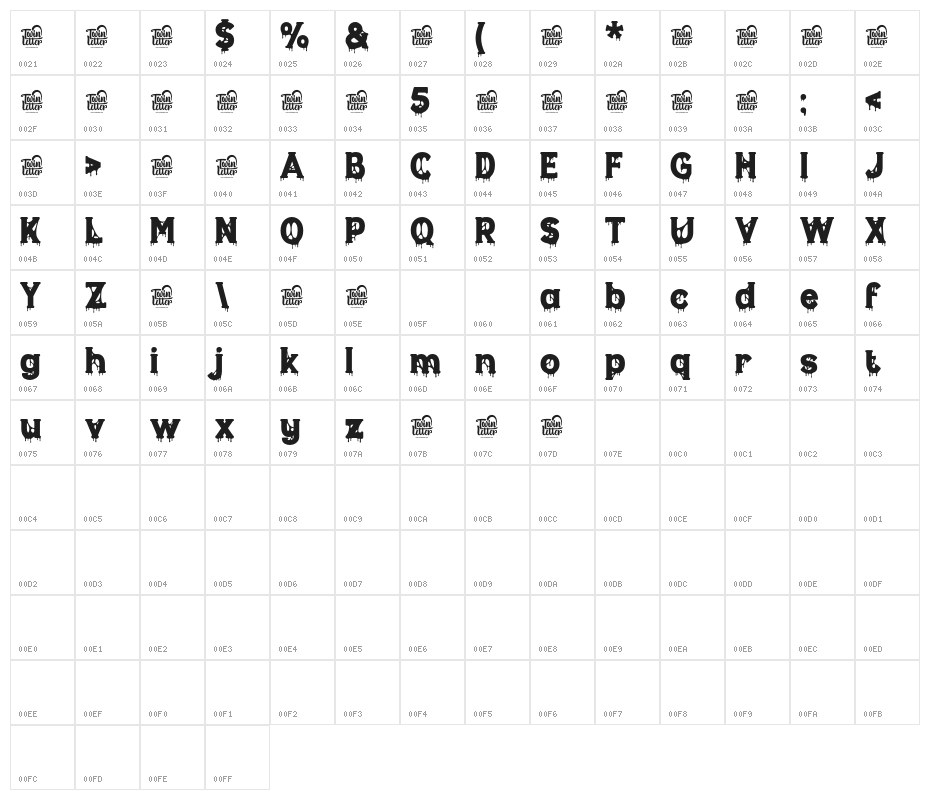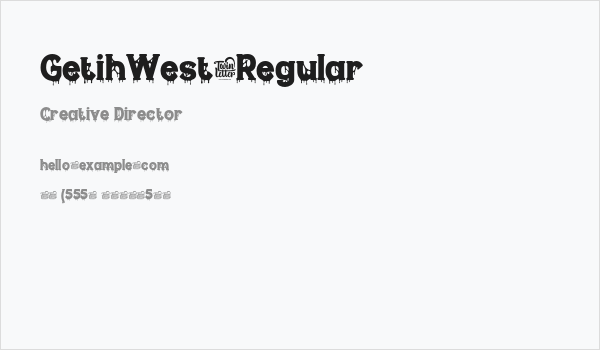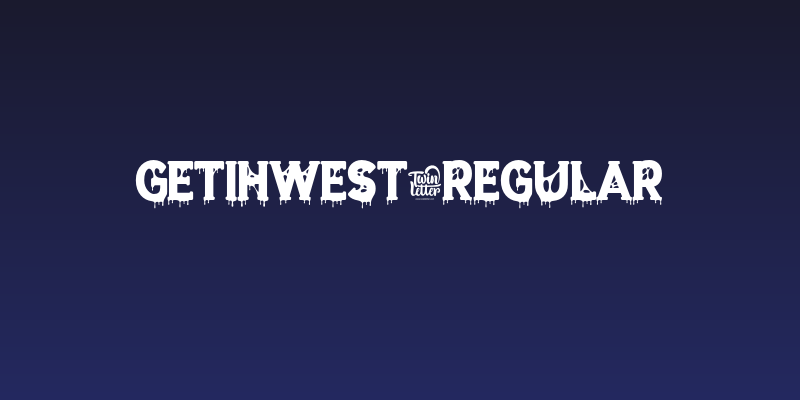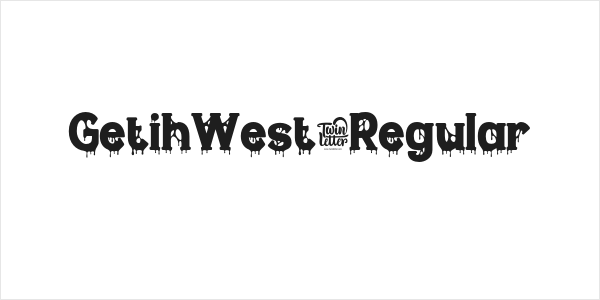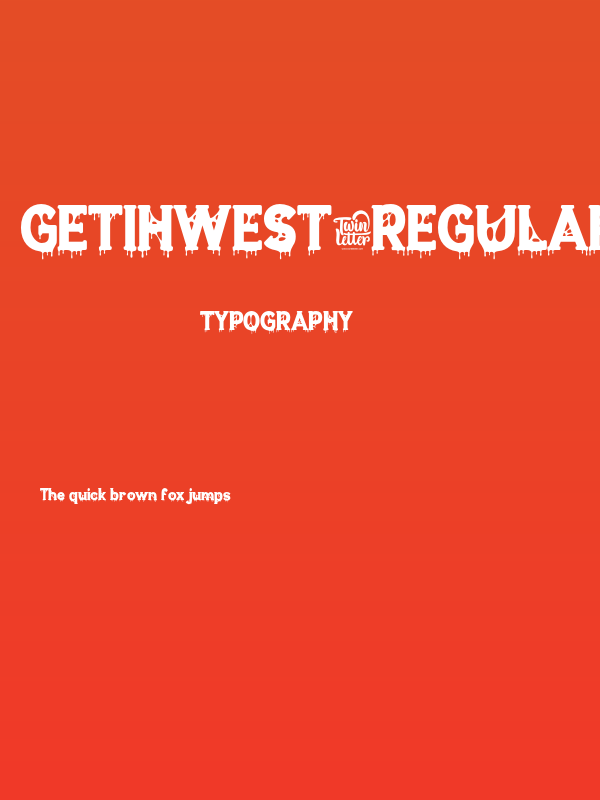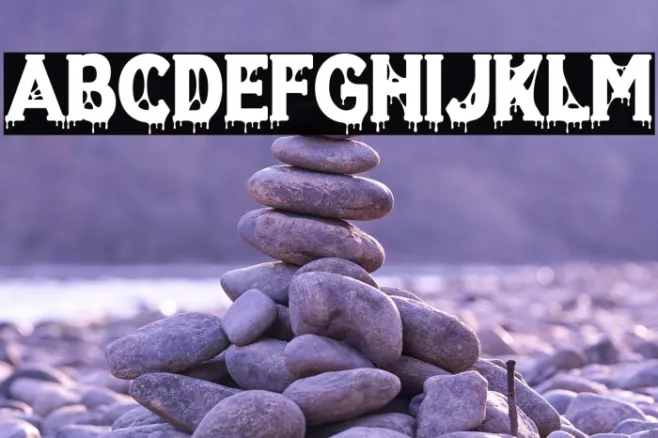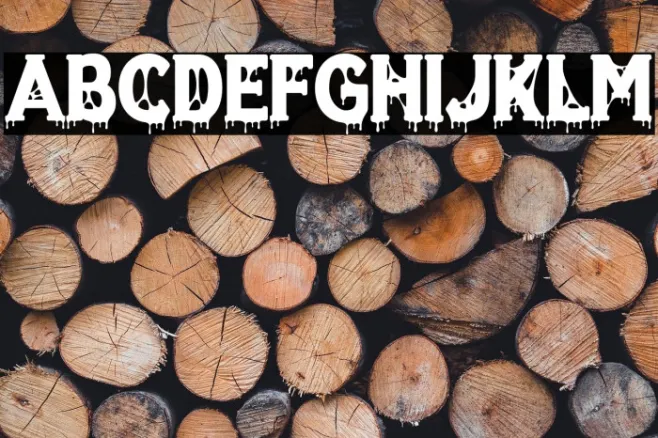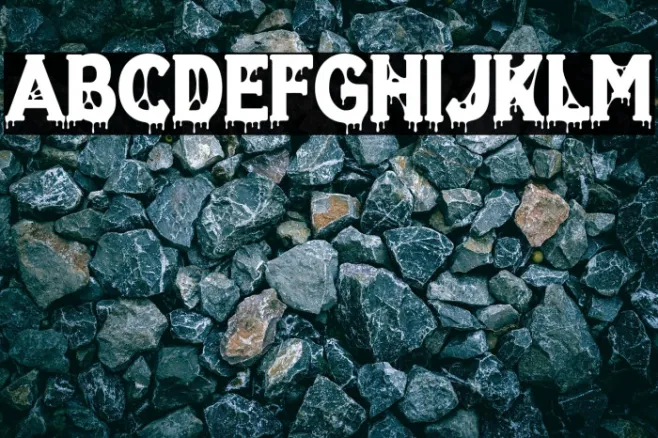
GetihWest-Regular Font
GetihWest-Regular Description
This font features a bold and playful design with a dripping effect that gives it a unique, slightly eerie appearance. The characters are robust and have a decorative style, making them stand out with their thick strokes and dripping ends. This design choice adds a sense of movement and fluidity, reminiscent of melting or dripping paint. The uppercase and lowercase letters maintain a consistent style, ensuring readability while still being visually striking. The numbers and special characters follow the same design principles, making them cohesive with the rest of the font.
| Use Case | Headlines, Posters, Logos |
| Proposed Projects | Ideal for Halloween-themed projects, horror movie posters, spooky invitations, or any design requiring a dramatic and playful touch. |